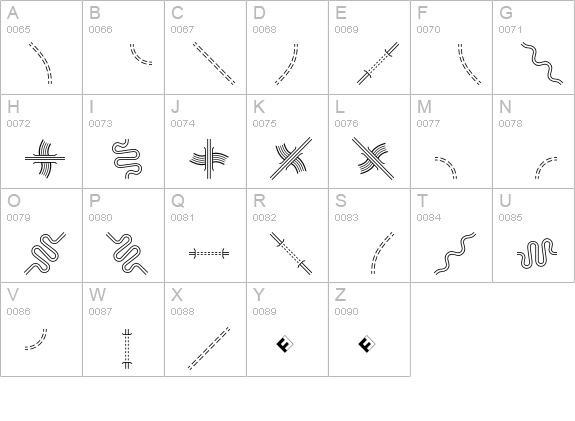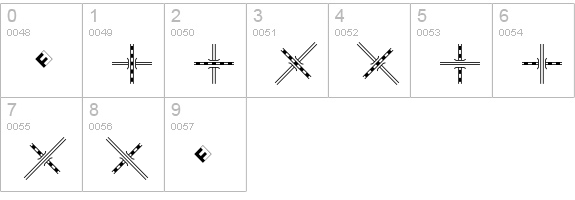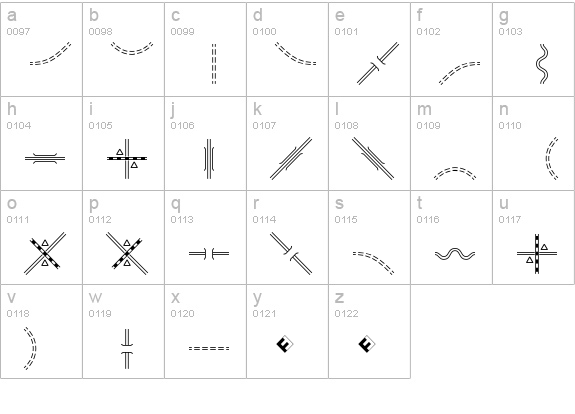
Routes A Two font is a stunning and versatile typeface that will elevate your design projects to new heights. With its sleek and modern appearance, this font is perfect for a wide range of applications, from branding and logos to marketing materials and web design. The clean lines and sharp edges of Routes A Two font make it a standout choice for any project that requires a touch of sophistication and elegance. What makes Routes A Two font even more appealing is that it is completely free to download at FontsMarket.com. That's right, you can access this high-quality font without having to spend a dime. So why wait? Give your designs a professional and polished look with Routes A Two font today.